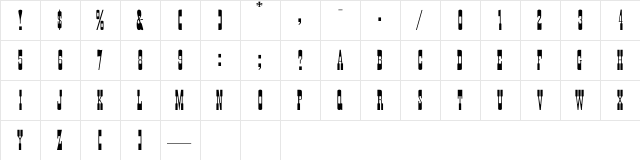
PonderosaEXEXBD Regular
Design Context for PonderosaEXEXBD
PonderosaEXEXBD is a composed and adaptable typeface that performs quietly and consistently across a wide range of design contexts. Its bold stroke weight gives it real presence on the page.
Pro Tip: Use PonderosaEXEXBD in both headline and body roles to test its range before committing to a single application.